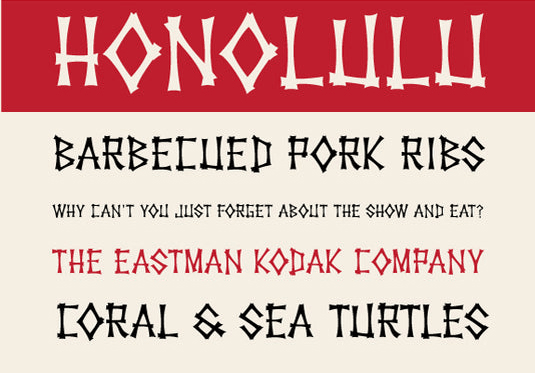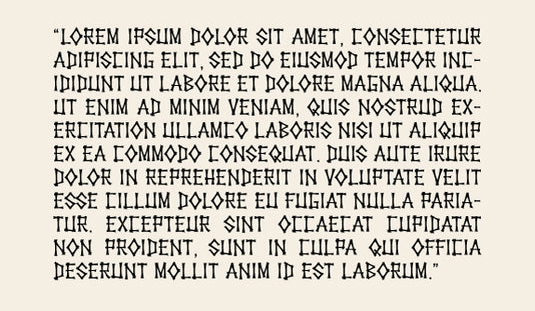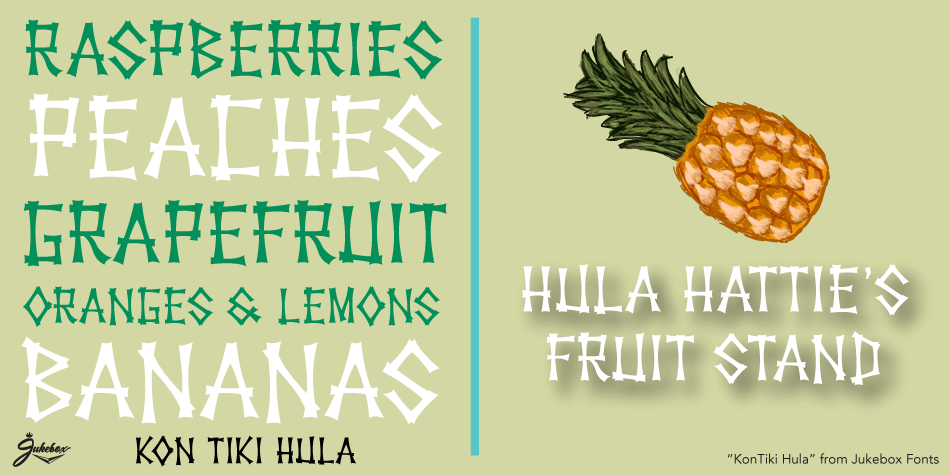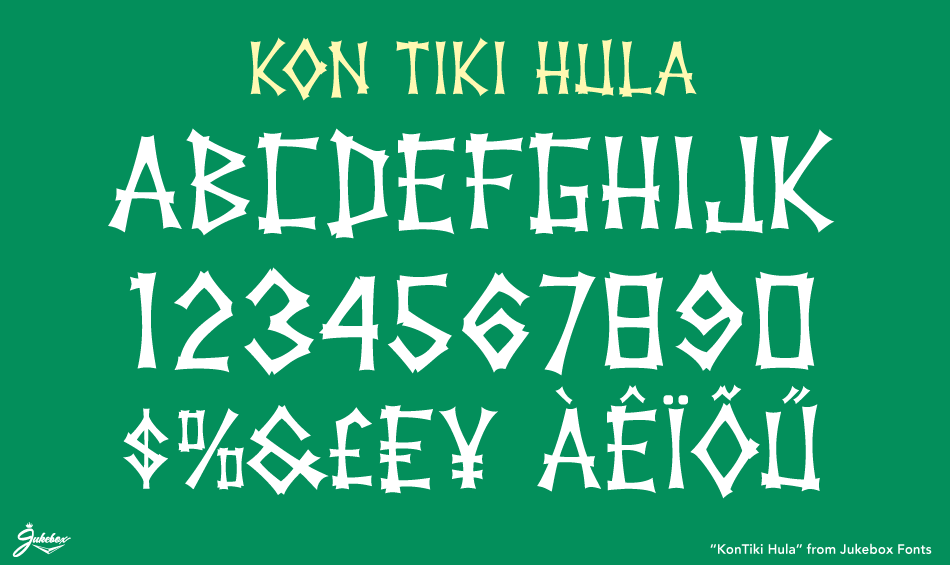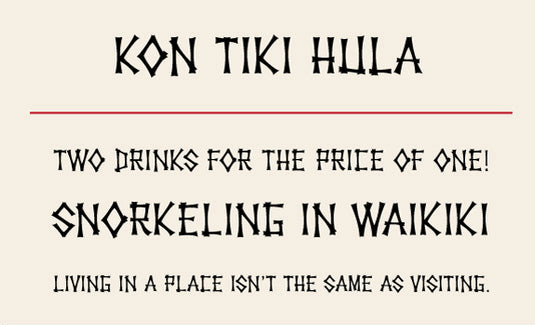
About Kon Tiki Hula
Kon Tiki Hula is one of a series of Kon Tiki fonts based on the tiki kitch popular during the 1950s and 1960s and is a great display face for any tropical or Polynesian themed design. The letters are reminiscent of bamboo stalks which lends it that island…